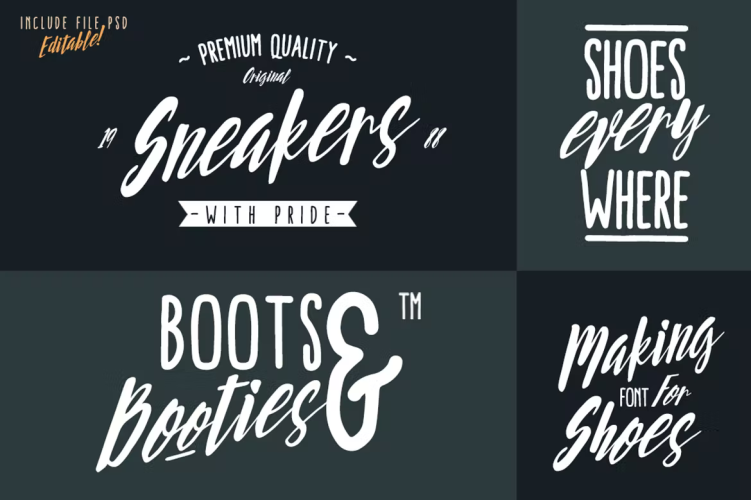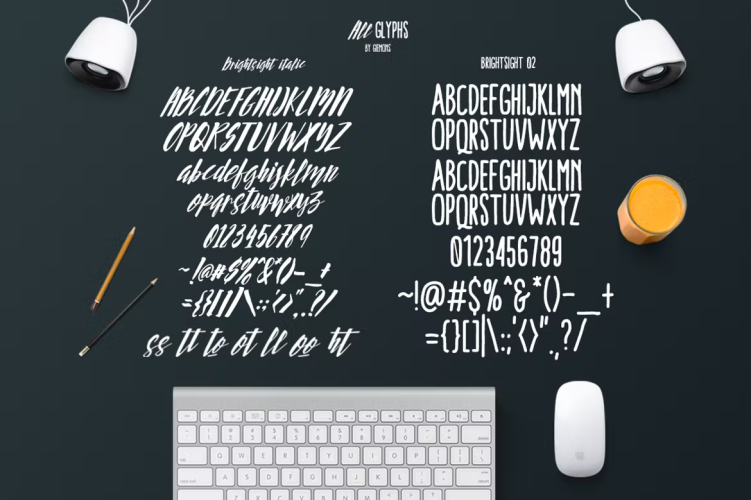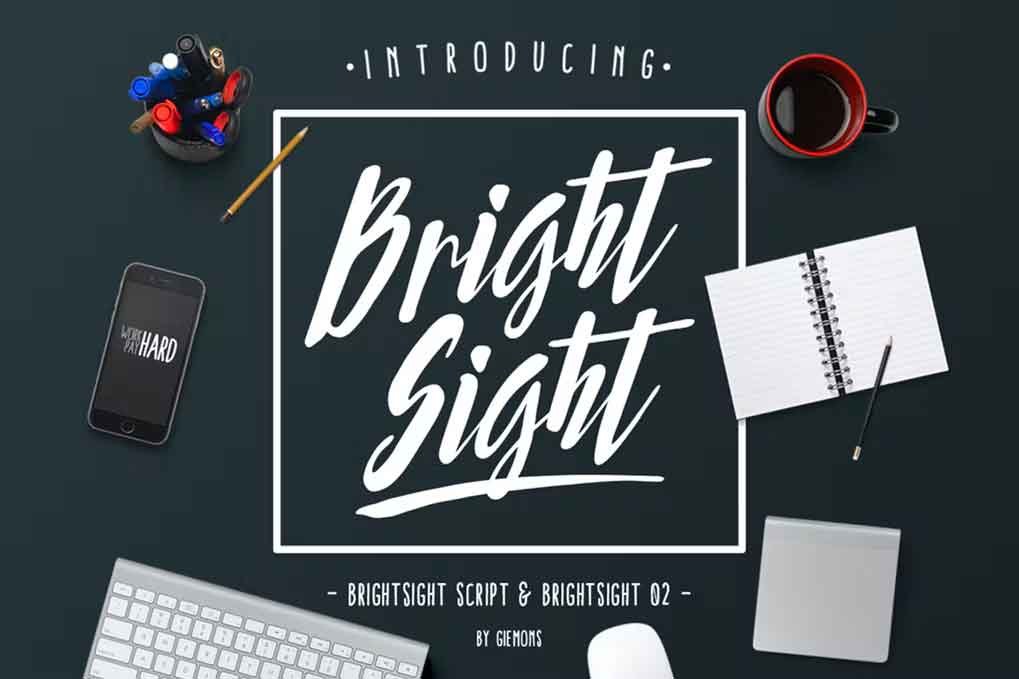
Bright Sight Font
Bright Sight Have 2 font of style options that can make it easier to convey the message in your design. Use for awesome badge, display, labeling, clothing, movie sceen,…
Bright Sight Have 2 font of style options that can make it easier to convey the message in your design.
Use for awesome badge, display, labeling, clothing, movie sceen, party poster, movie title, gigs, album covers, logos, and much more.
Where Bright Sight Font works best
A short phrase in Bright Sight Font carries warmth that a typeset sans cannot fake; keep the rest of the card plain.
Chalkboard-style headings in Bright Sight Font make a menu feel hand-made. Keep the dish descriptions in a simple face so prices stay readable.
One line of Bright Sight Font over a photo is enough; the script carries the tone and the caption does the work.
What kind of work does Bright Sight Font suit?
It sits in the Script And Handwritten group and reads as branding, display, handwritten, music. That makes it a candidate wherever those qualities help: headings, packaging, social graphics and brand work. Set it at the size you plan to use before deciding.